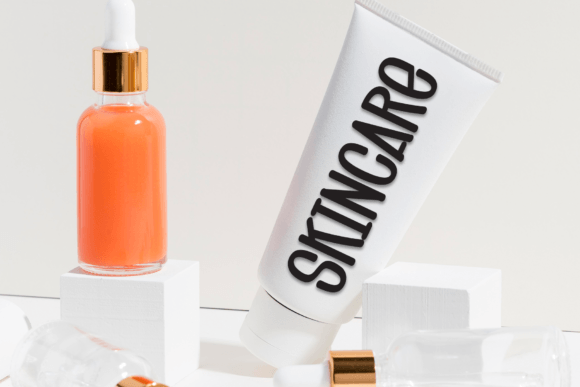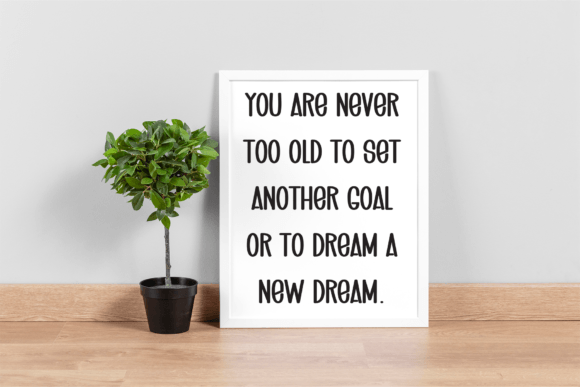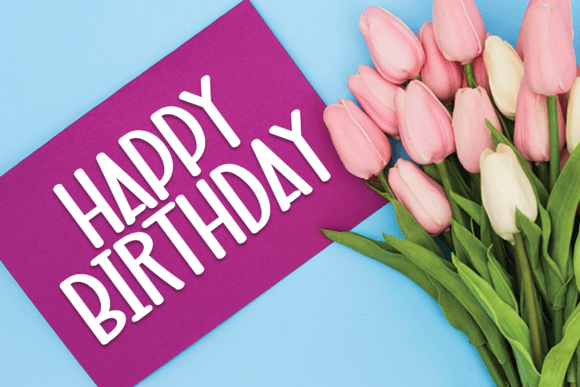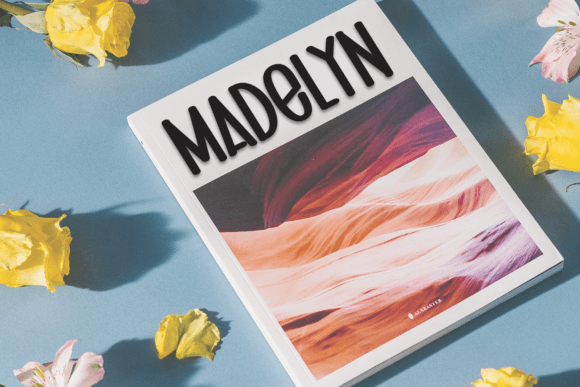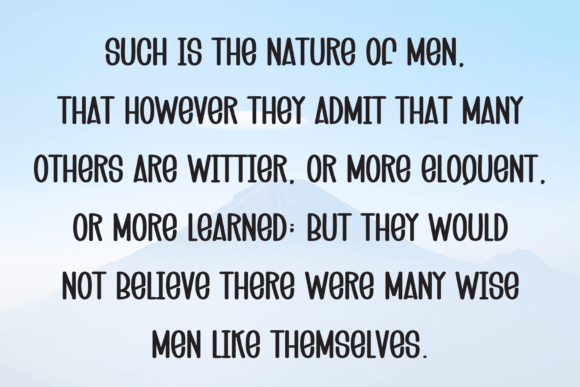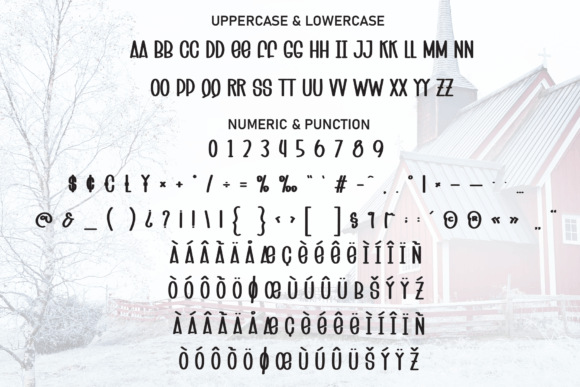
Introduction to Snow Farmhouse Font
Have you ever stumbled upon a font that makes you feel like you’re sipping hot cocoa on a cozy winter morning? For me, that font is Snow Farmhouse. It’s the perfect blend of whimsy and warmth, with natural, flowing strokes that transport you to a simpler time.
As a designer, I’ve always been on the lookout for high-quality fonts that can add a touch of personality to my projects. And let me tell you, Snow Farmhouse Font is a game-changer. With its effortless, charming style, it’s the ideal design resource for anyone looking to create a unique and authentic look.
Key Features of Snow Farmhouse Font
- High-quality, hand-drawn design for a unique and creative project
- Designed with a large x-height, making it perfect for body text and headings
- Available in 6 different weights (Thin, Light, Regular, Medium, Bold, Heavy) for added versatility
Honest Review: Snow Farmhouse Font
I recently had the chance to work with the Snow Farmhouse Font and I must say, it’s been a game-changer for my design projects. This high-quality font is a fantastic design resource that adds a touch of elegance to any creative project.
What works well is its versatility – it’s perfect for both digital and print designs. The font’s clean and rustic feel makes it suitable for a wide range of applications, from wedding invitations to blog headers.
- ✨ Great for digital and print designs
- ✨ Versatile and suitable for various applications
However, I did notice that the font can be a bit difficult to read at smaller font sizes ⚠️. But overall, this is a minor limitation that doesn’t detract from the font’s overall quality.
Overall, I’m thoroughly impressed with the Snow Farmhouse Font and I would highly recommend it to any designer looking for a high-quality, reliable font for their creative project.
The Snow Farmhouse Font is a versatile font that can be used in a variety of creative projects, including invitations, greeting cards, and digital designs. Its high-quality design makes it perfect for any project that requires a touch of elegance and sophistication.
Q: What is the recommended usage for the Snow Farmhouse Font?
The Snow Farmhouse Font is suitable for a wide range of design applications, including print design, web design, and digital design. It’s perfect for use in logos, branding, packaging, and other creative projects where a high-quality, elegant font is required. The font is also suitable for use in a variety of industries, including fashion, beauty, and lifestyle.